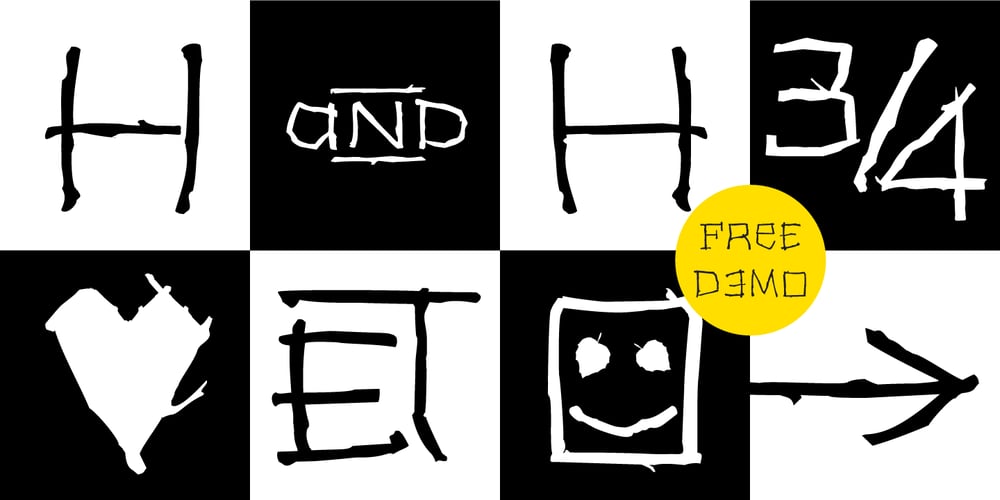
TWIGS 4 kids Font Family was designed by Alexander Branczyk, Manuel Viergutz, Daniela Costa, Julia Stanossek and published by TypoGraphicDesign. TWIGS 4 kids contains 7 styles and family package options. The typeface TWIGS 4 kids was originally designed for a garden exhibition for children by Daniela Costa, Julia Stanossek, Alexander Branczyk and Manuel Viergutz.4 font-styles (Einerseits, Andererseits, Invert, Icons) with 495 glyphs (Adobe Latin 1) incl. decorative extras like icons, arrows, dingbats, emojis, symbols, geometric shapes, catchwords, decorative ligatures (type the word #LOVE for ❤ or #SMILE for ☻ as OpenType-Feature dlig) and stylistic alternates (20+ stylistic sets).For use in logos, magazines, posters, advertisement plus as webfont for decorative headlines. The font works best for display size.Have fun with this font & use the DEMO-FONT (with reduced glyph-set) FOR FREE! Font Specifications■ Font Name: TWIGS 4 kids■ Font Weights: Einerseits, Andererseits, Invert, Icons + DEMO (with reduced glyph-set)■ Font Category: Display for headline size■ Glyph Set: 495 glyphs (Adobe Latin 1)■ Specials: Decorative extras like arrows → emojis, ornaments, geometric shapes, catchwords, decorative ligatures (type the word #LOVE for ❤ or #SMILE for ☺ as OpenType Feature. dlig) and stylistic alternates (20 stylistic sets)■ Design Date: 2005–2020■ Type Designer: Manuel Viergutz